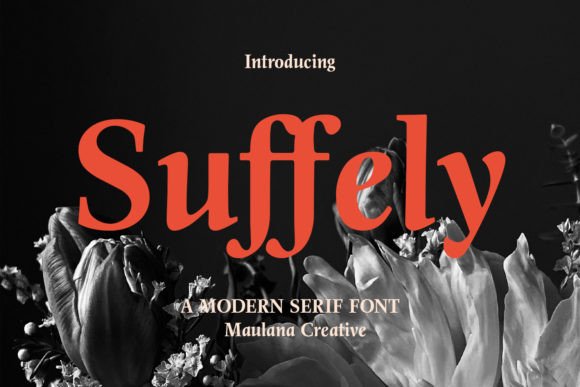
Introducing Suffely Font: The Signature Serif for Logo Designs, Crafted with Precision and Style
In the realm of visual communication, one element that holds immense power in shaping perceptions and evoking emotions is typography. Among the myriad of font families, the serif font stands apart with its timeless elegance and unwavering sophistication. Suffely Font, a modern display serif, embodies the very essence of this classic genre, transcending mere aesthetics to become an indispensable tool for designers seeking to make a lasting impression.
With its meticulously crafted curves and graceful terminals, Suffely Font exudes an air of refinement that commands attention. Its carefully balanced proportions lend a sense of harmony and visual intrigue, ensuring that every letterform carries its own distinct character. Whether you're designing a logo, creating a poster, or crafting a captivating social media post, Suffely Font promises to elevate your designs with an unparalleled level of sophistication.
Beyond its visual appeal, Suffely Font holds a practical advantage that makes it a favorite among professional designers. Its versatility extends across a wide range of applications, from print to digital, ensuring seamless integration into your creative projects. Whether you're designing for a website, a brochure, or an eye-catching social media campaign, Suffely Font adapts effortlessly, delivering consistent excellence in every context.
For those seeking to create a lasting impact with their designs, Suffely Font emerges as the ultimate choice. Its timeless aesthetic, coupled with its unwavering versatility, empowers you to craft designs that captivate audiences and leave an indelible mark. Join the ranks of discerning designers who have discovered the magic of Suffely Font and unlock the true potential of your creative genius today.